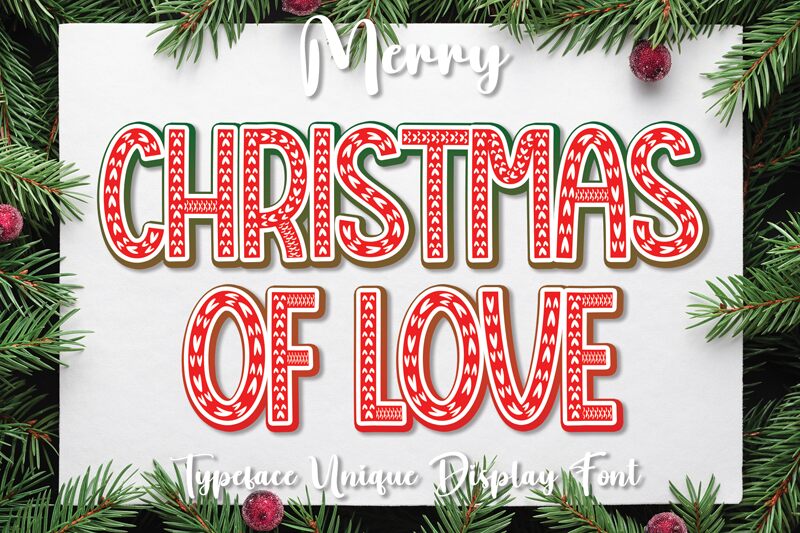
Christmas Of Love
Embrace the festive spirit with Christmas of Love, a whimsically decorative font crafted by Scratchones. With its semi-light weight and condensed width, this display typeface is a merry blend of charm and elegance, perfect for sprinkling holiday cheer across a wide array of creative endeavors.
Whether you're designing heartfelt Christmas cards, attention-grabbing posters, or enchanting event invitations, the playful swirls and unique character shapes of Christmas of Love will infuse your projects with an unforgettable warmth. Its suitability extends beyond seasonal festivities to any project that calls for a touch of joy and a dash of love.